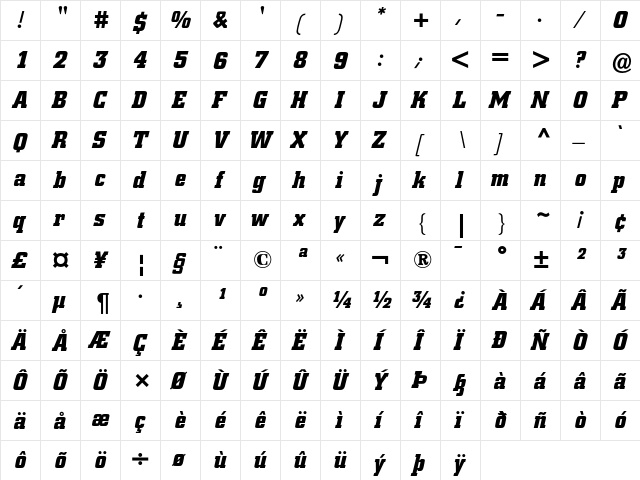
Berthold City Bold Italic
Design Context for Berthold City Typeface
Berthold City takes a measured approach to typography — its balanced proportions and neutral character make it a reliable workhorse for both digital and print work. The dynamic lean of this cut emphasises speed and emphasis in any layout. The heavy weight commands attention and anchors typographic hierarchies.
Pro Tip: Use Berthold City for emphasis, pull quotes, and subheadings where its slanted energy can add rhythm to the layout.